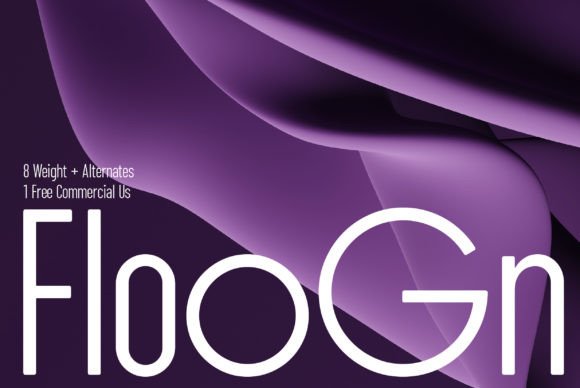
Introducing the ZT Floogn Font Family: A Modern Sans Serif with a Rounded Twist
The world of typography has just gotten a little more exciting with the introduction of the ZT Floogn font family, designed by Khaiuns and published by Zelowtype. This modern sans serif font boasts a unique rounded look that sets it apart from other typefaces in its category. With its balanced proportions, uniform stroke width, and subtle variations in typeforms, the ZT Floogn font is sure to make a statement in any design project.
What Makes ZT Floogn Stand Out?
The ZT Floogn font family is characterized by its dense sans serif style with a rounded look. This distinctive design gives the font a fresh and friendly personality that is perfect for headlines and poster-sized typography. The font’s narrow shape makes it ideal for designs where space is limited, but impact is essential.
One of the key features that sets ZT Floogn apart is its balanced proportions. Each letter is carefully crafted to ensure that the font looks harmonious and visually appealing, even at smaller sizes. The uniform stroke width adds to the font’s clean and modern look, making it perfect for designs that require a professional touch.
Another notable feature of the ZT Floogn font is its subtle variations in typeforms. This means that the font has a unique character at every weight, from light to bold. This versatility makes it easy to use the font in a variety of design projects, from elegant headlines to bold posters.
The Design Process Behind ZT Floogn
The design process behind the ZT Floogn font family was meticulous and thorough. Designer Khaiuns worked tirelessly to create a font that was not only visually appealing but also highly functional. The goal was to create a font that would be perfect for headlines and poster-sized typography, and it’s clear that Khaiuns succeeded.
The design of ZT Floogn involved careful consideration of every detail, from the shape of each letter to the spacing between them. The result is a font that is both aesthetically pleasing and highly legible, even at smaller sizes.
Using ZT Floogn in Your Design Projects
The ZT Floogn font family is perfect for a wide range of design projects, from posters and headlines to logos and branding materials. Its unique rounded look and balanced proportions make it an excellent choice for designers looking to add a touch of personality to their work.
One of the best ways to use ZT Floogn is in headlines and titles. The font’s bold and confident look makes it perfect for grabbing attention and making a statement. It’s also an excellent choice for poster-sized typography, where its narrow shape and clean lines can really make an impact.
ZT Floogn is also a great choice for logos and branding materials. The font’s unique character and versatility make it easy to use in a variety of contexts, from business cards to billboards.
Key Features of ZT Floogn
- Modern sans serif style: ZT Floogn has a clean and modern look that’s perfect for designs that require a professional touch.
- Rounded look: The font’s unique rounded look sets it apart from other sans serif typefaces.
- Balanced proportions: Each letter is carefully crafted to ensure that the font looks harmonious and visually appealing.
- Uniform stroke width: The font’s uniform stroke width adds to its clean and modern look.
- Subtle variations in typeforms: The font has a unique character at every weight, making it versatile and easy to use.
The ZT Floogn font family is a game-changer for designers looking to add a touch of personality to their work. Its unique rounded look, balanced proportions, and subtle variations in typeforms make it a versatile and highly functional font that’s perfect for a wide range of design projects.
Whether you’re working on a poster, headline, logo, or branding materials, ZT Floogn is an excellent choice. Its modern sans serif style and clean lines make it perfect for designs that require a professional touch, while its unique character and versatility make it easy to use in a variety of contexts.